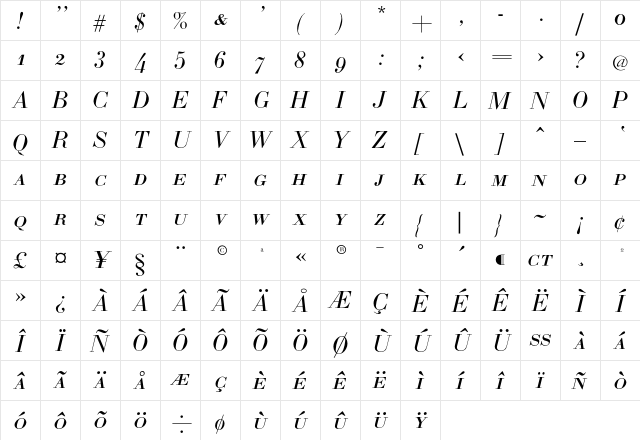
BodoniZH-SC-Italic Regular
Design Context for BodoniZH-SC-Italic Typeface
BodoniZH-SC-Italic is a composed and adaptable typeface that performs quietly and consistently across a wide range of design contexts. The dynamic lean of this cut emphasises speed and emphasis in any layout.
Pro Tip: Use BodoniZH-SC-Italic for emphasis, pull quotes, and subheadings where its slanted energy can add rhythm to the layout.